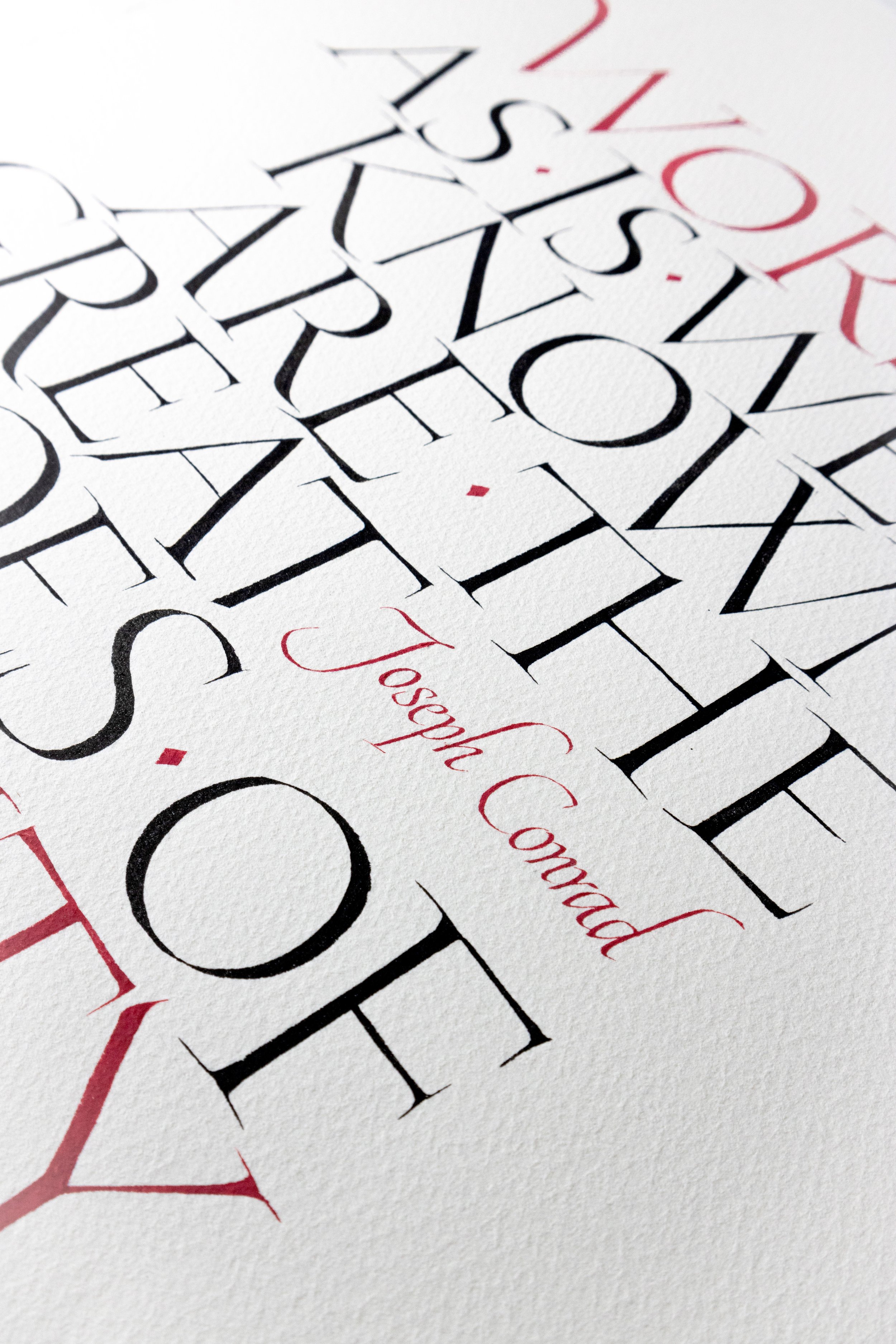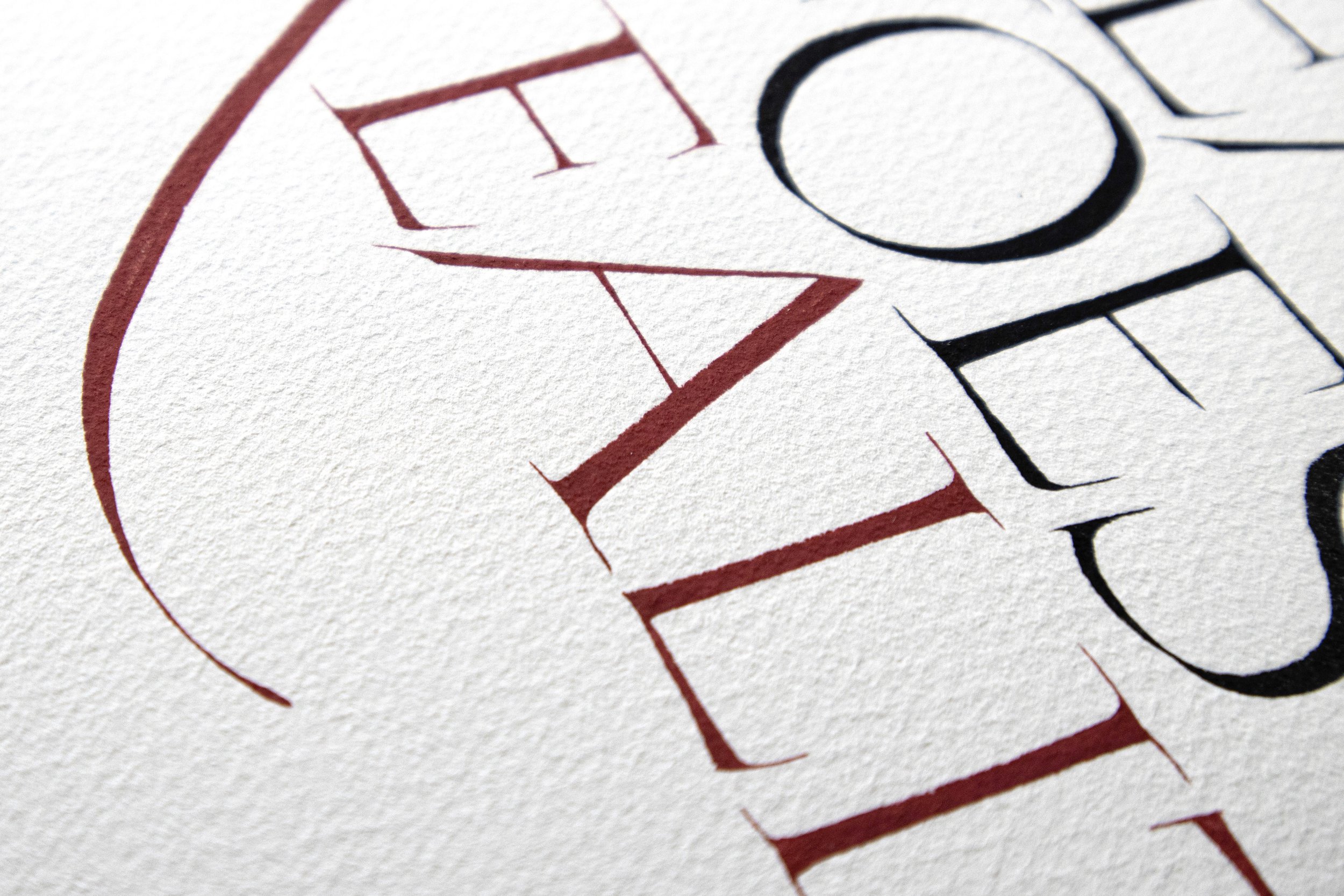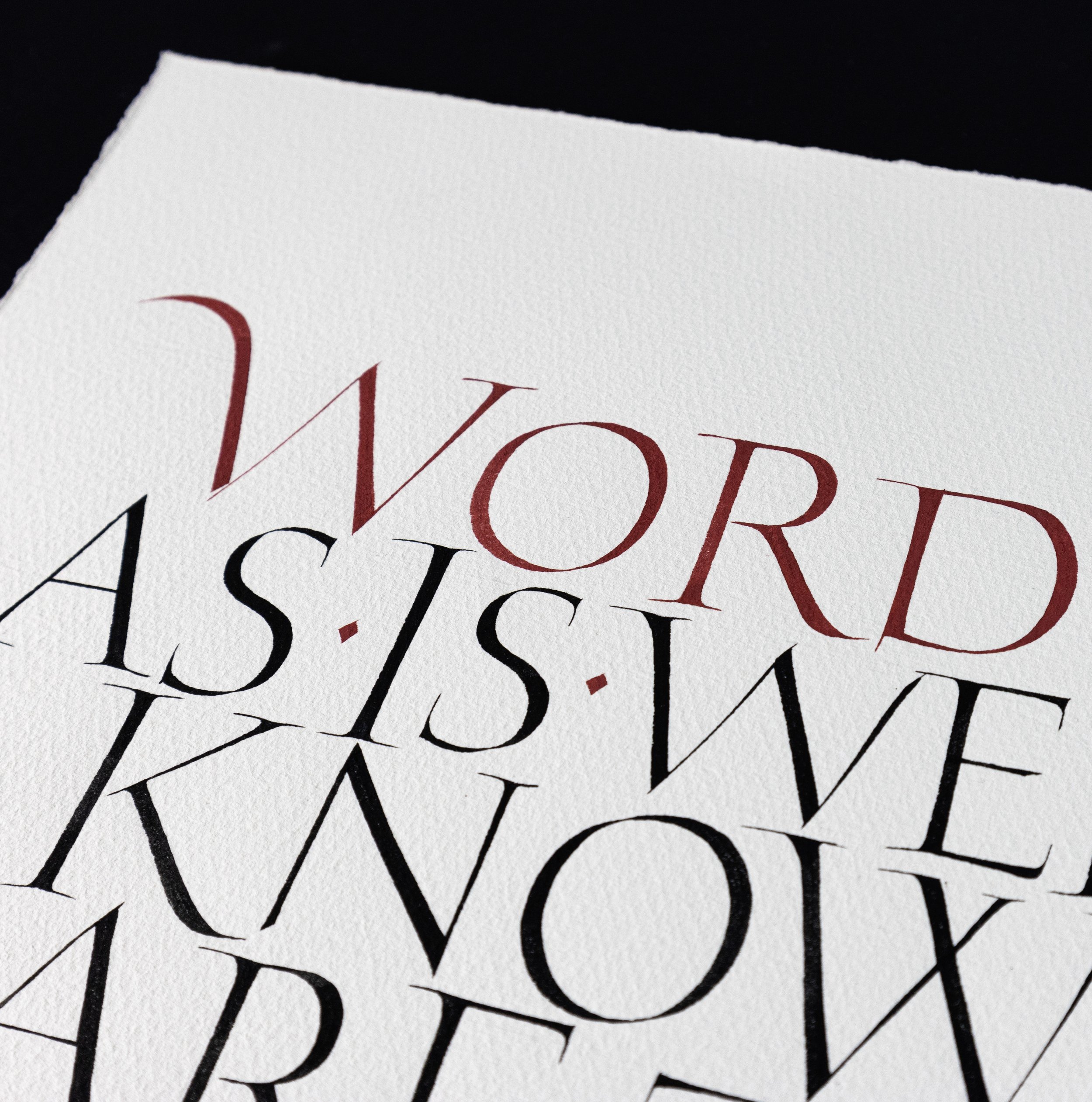
FILIP CIŚLAK | Joseph Conrad - Power of Words
ARTIST | Filip Cislak
BASED IN | Poland
TITLE | Joseph Conrad - Power of Words
A powerful quote by Joseph Conrad on the nature of language: ‘Words, as is well known, are the great foes of reality.’ Written in an expressive interpretation of classical Roman Capitals, using an interplay ofred and black gouache. The composition is rendered on Saunders Waterford Cold Pressed paper, which features a heavy texture and a naturally warm tone.
About the artist
Filip Cislak
Filip Cislak’s journey in calligraphy began during his Graphic Design studies at the Academy of Fine Arts in Katowice, where he discovered a passion for this art form in type design classes. Initially self-taught, he later refined his skills through workshops with renowned instructors like Luca Barcellona, Christopher Haanes, and John Stevens. In 2022, he earned a PhD, focusing on teaching calligraphy to graphic design students.
Cislak has taught calligraphy in various cities, including Katowice, Kraków, Warsaw, Helsinki, Bratislava, and Zaragoza, and is currently an assistant professor in the graphic design department at the Academy of Fine Arts in Katowice. He is a member of the Calligraphymasters collective and the Speedball Professional Artist Network and played a role in organizing the 2024 Calligraphy Festival in Katowice. His calligraphic works have been exhibited in Poland, Germany, and Turkey.
Focused on Western calligraphy, Cislak views calligraphy as a creative medium and a form of visual communication. He values historical letterforms as a foundation for experimentation and modern reinterpretations, blending tradition with innovation.